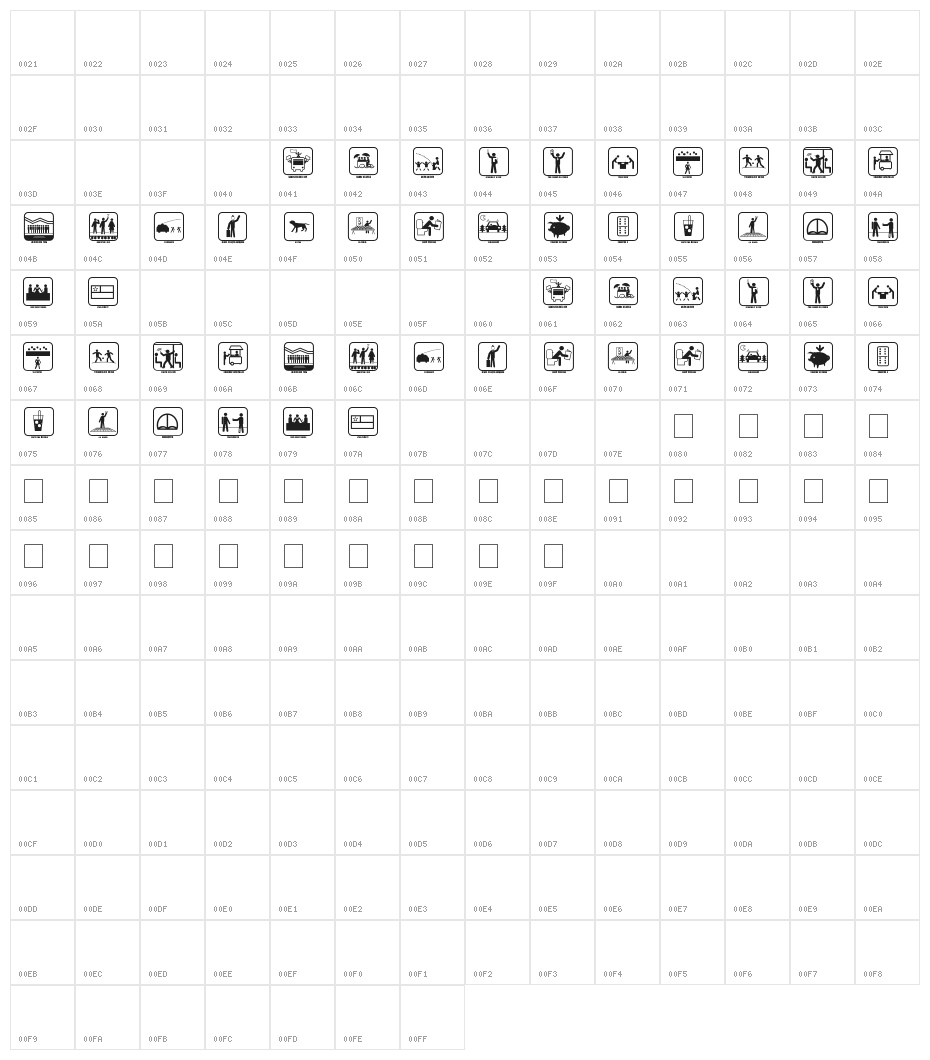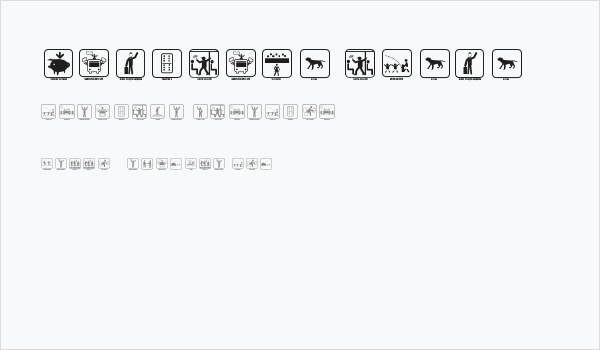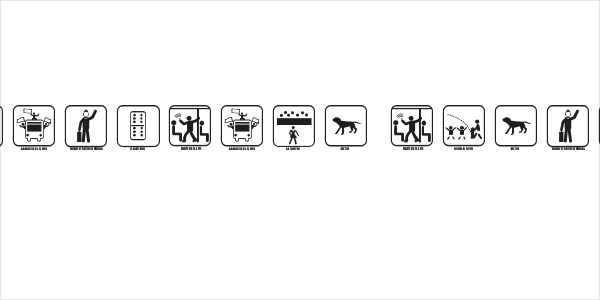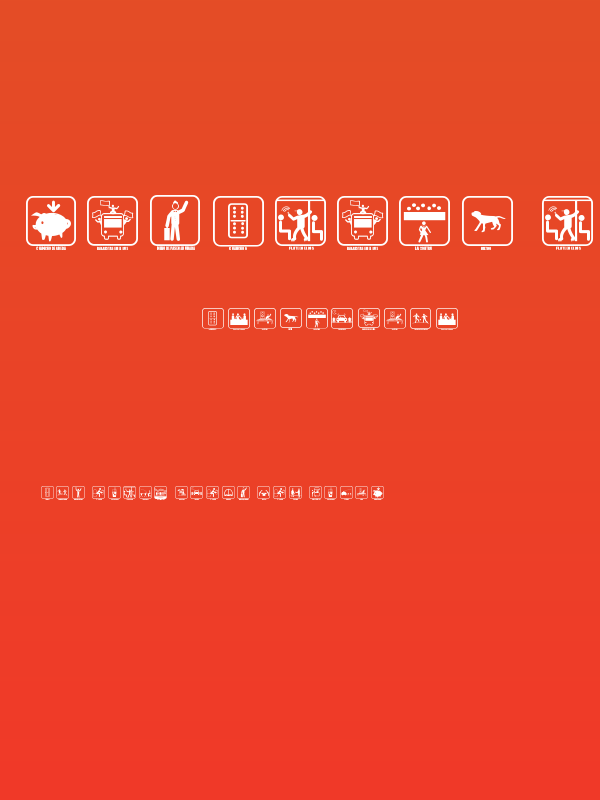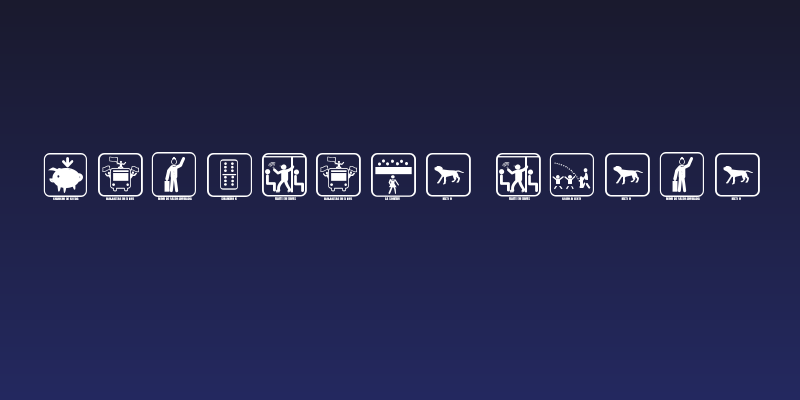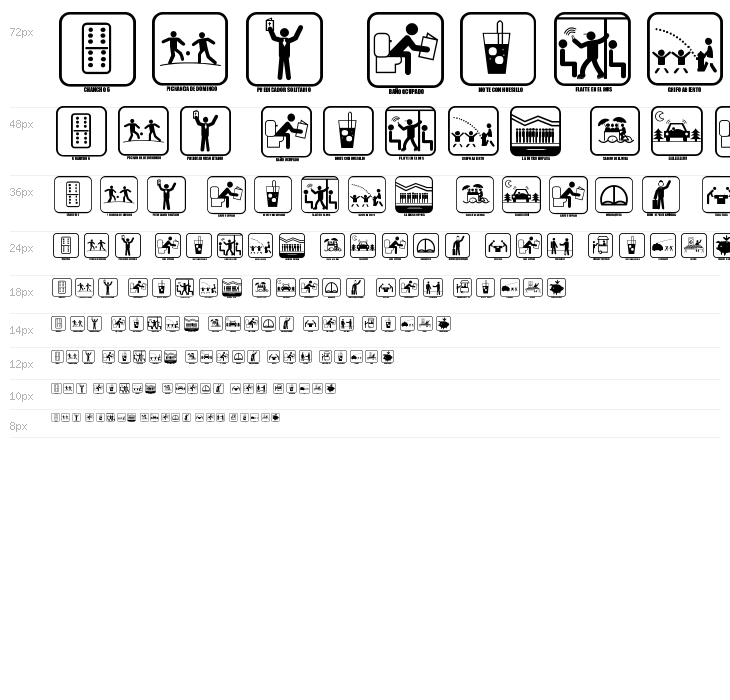
SANTIAGO ICONO Font
SANTIAGO ICONO Description
A set of pictogram-style icons with simple, bold, black silhouettes inside rounded square frames, each representing a different activity or concept. The icons are highly legible, with minimal detail and strong visual clarity, suitable for quick recognition.
| Overall Style | Modern, Minimalist |
| Use Case | Signage, Icons, Infographics, Maps |
| Proposed Projects | Wayfinding signage, public information systems, infographics, urban navigation, educational materials. |